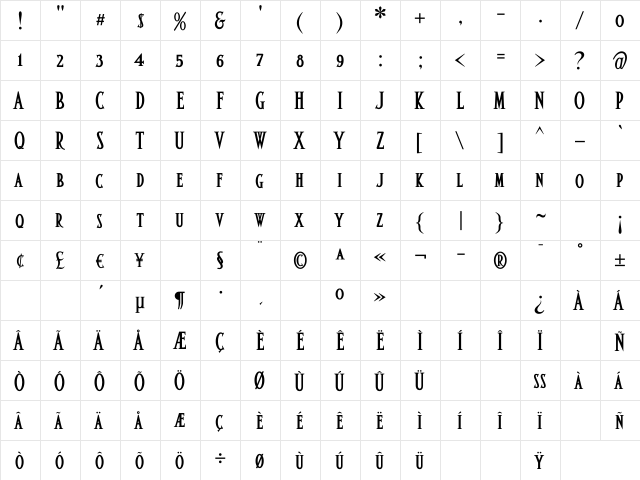
AltarSmall Caps Bold Regular
Design Context for AltarSmall Caps Bold Typeface
AltarSmall Caps Bold takes a measured approach to typography — its balanced proportions and neutral character make it a reliable workhorse for both digital and print work. Its bold stroke weight gives it real presence on the page.